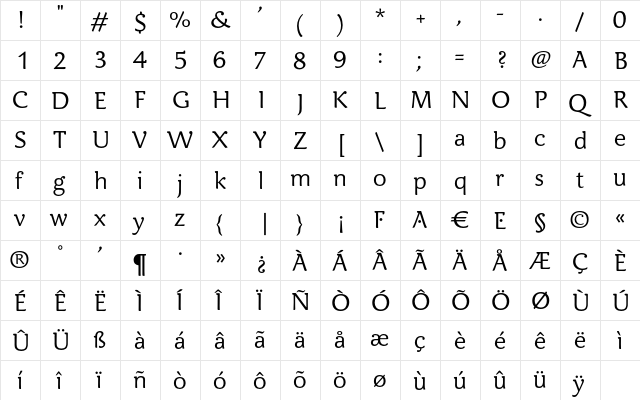
CarrefourMetis Medium
Design Context for CarrefourMetis Typeface
CarrefourMetis is a composed and adaptable typeface that performs quietly and consistently across a wide range of design contexts.
Pro Tip: Use CarrefourMetis in both headline and body roles to test its range before committing to a single application.